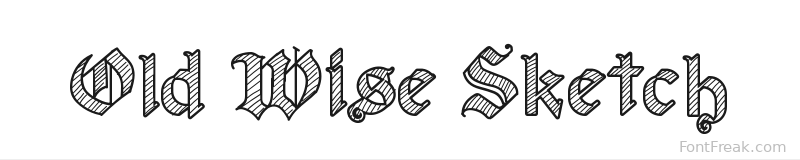
Old Wise Sketch
The Old Wise Sketch font by Galdino Otten Fonts is a distinctive display typeface that captures the charm of hand-drawn lettering. Released in 2017 and available as freeware, this font features a unique blend of old-world elegance and whimsical sketch-like qualities, making it an eye-catching choice for various design projects. The font is characterized by its playful strokes, which vary in weight, adding a sense of texture and depth. The contrast between thick and thin lines gives it a dynamic appearance, while the generous spacing between characters enhances readability.
Old Wise Sketch is perfect for a range of creative applications. It shines in wedding invitations, where its artistic flair can convey a sense of romance and individuality. Additionally, it works beautifully for movie posters, allowing designers to evoke a vintage or fantasy theme that captures the audience's attention. Restaurant menus can also benefit from this font, as it adds a touch of character to the dining experience, making it feel more inviting. Moreover, content creators looking to add a unique aesthetic to their blogs or social media graphics will find this typeface to be a valuable asset.
Targeting graphic designers, small business owners, and content creators alike, Old Wise Sketch offers versatility and personality in every project. Its distinctive style allows users to express creativity while maintaining professionalism.
What sets the Old Wise Sketch font apart is its ability to blend artistry with functionality. Its free download option makes it accessible for anyone looking to enhance their design toolkit. By incorporating this font into your work, you can effortlessly infuse a sense of character and charm, making your projects stand out in a crowded visual landscape.